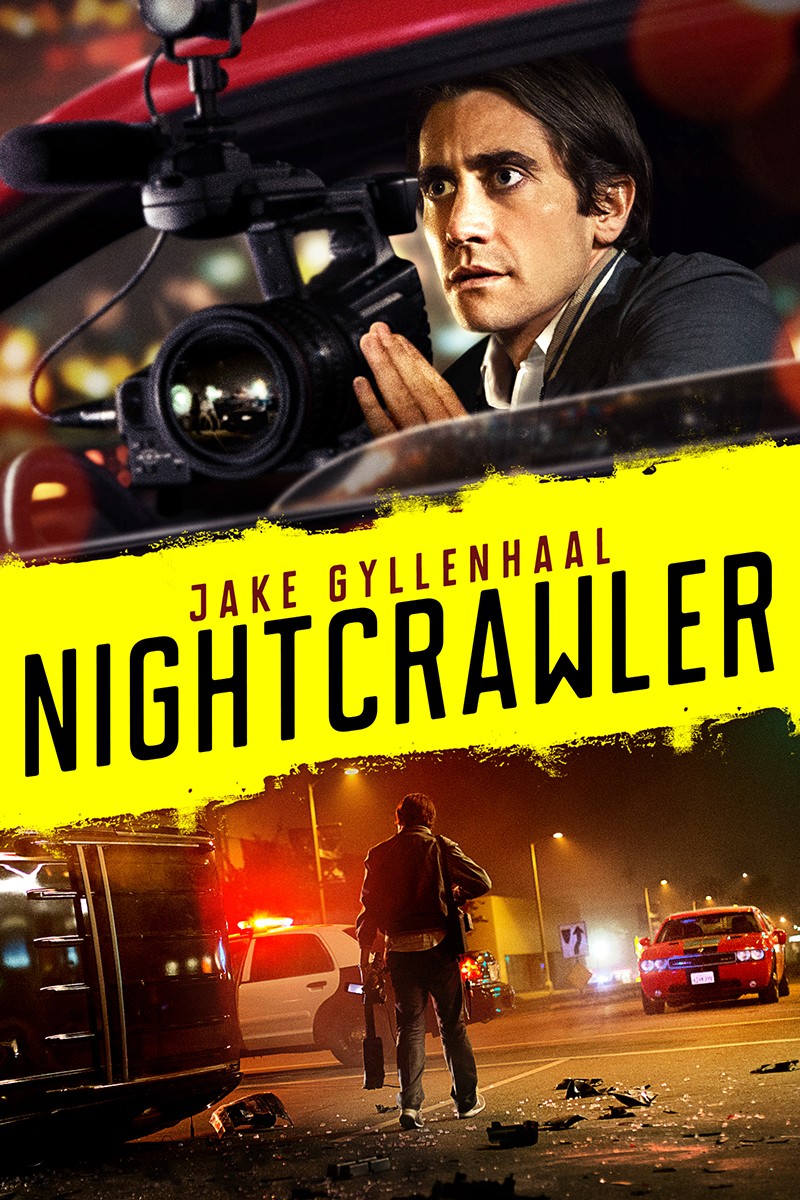
Nightcrawler (film) Font
CrimeNightcrawler is a 2014 thriller film directed by Dan Gilroy. It follows a young man named Louis Bloom who becomes a freelance crime journalist, chasing and filming violent incidents in Los Angeles to sell the footage to news stations, blurring the lines between observer and participant.
The poster for the film "Nightcrawler" features the title displayed in the font Mr Alex Bold. Created by Aleksandra and Daniel Mizielińscy, this clean and stylish display sans-serif font family includes three weights and rounded corners.